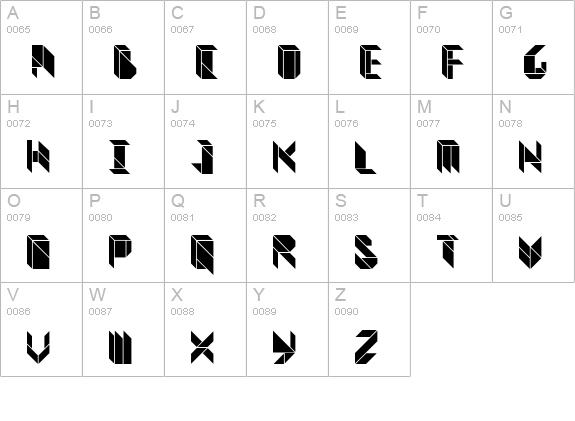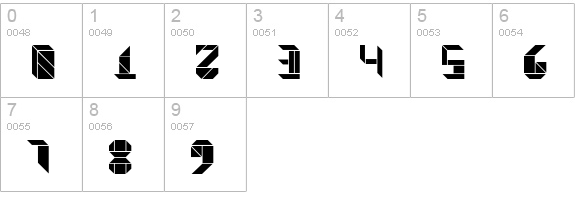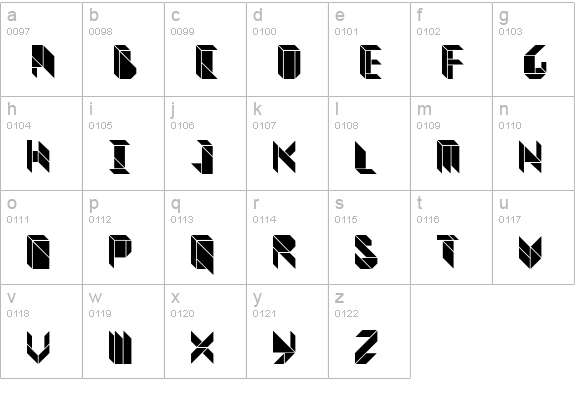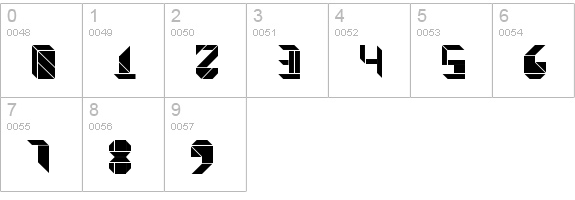
Vitreous Black is a maximum-weight, dramatic variant in the Vitreous typeface family \xE2\x80\x94 well suited to maximum-impact headlines, posters, and packaging.
Vitreous Black font is a stunning display typeface that exudes elegance and sophistication. Its sleek and streamlined design captivates the eye, making it perfect for projects that require a touch of modernity and professionalism. The letters are beautifully crafted with clean lines and a bold presence, allowing the font to stand out in any context. This font possesses a unique versatility, making it suitable for a wide range of design applications. Whether it's for branding, logo design, editorial layouts, or even website headers, Vitreous Black font effortlessly adds a touch of class and refinement to any project. One of the most appealing aspects of Vitreous Black font is that it is completely free. Yes, you read that right! This incredible typeface is freely available for download at FontsMarket.com, allowing designers and creatives to access its beauty without any cost or limitations. The availability of Vitreous Black font at FontsMarket.com ensures that designers have the freedom to explore and experiment with this remarkable typeface. With just a few clicks, you can enhance your design projects with the sleek and contemporary aesthetic that Vitreous Black font offers. So why wait? Download Vitreous Black font from FontsMarket.com today and elevate your designs to new heights. Embrace the freedom of creativity and unlock the visual potential of this magnificent typeface.